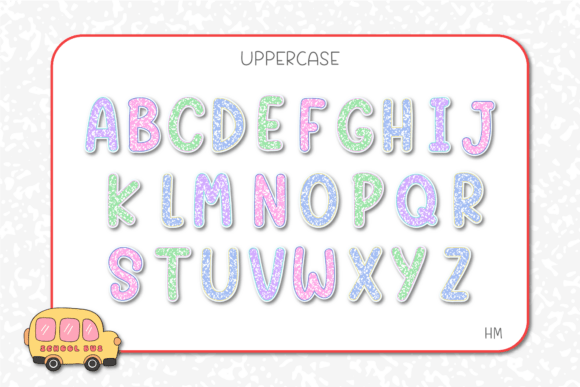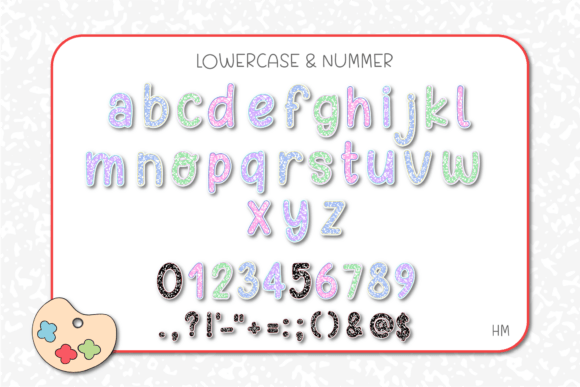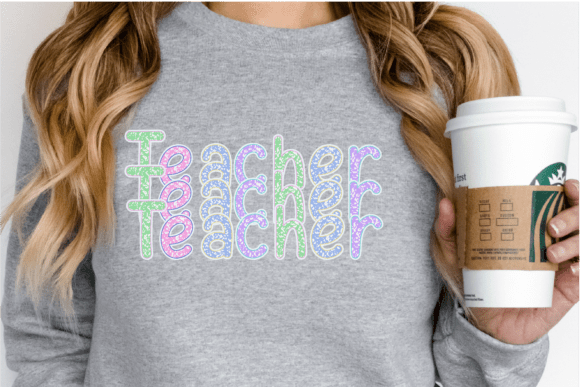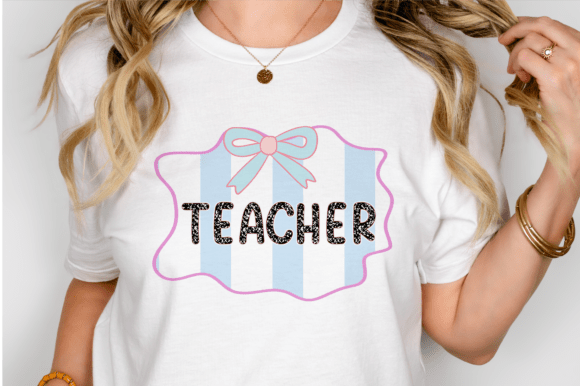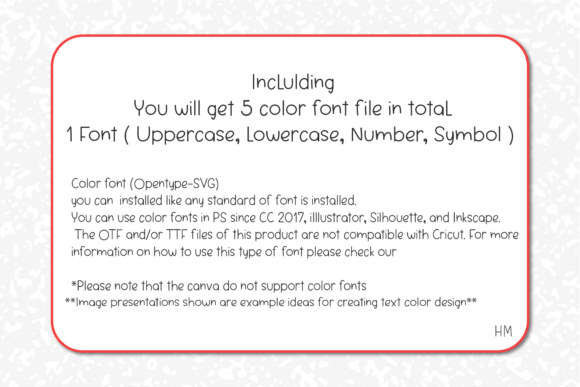
Get Ready for a Fun-Filled School Year with the Back to School Font
As I sat in my cozy home office, surrounded by scraps of paper and half-finished craft projects, I couldn’t help but feel a surge of excitement as I started brainstorming ideas for the new school year. It’s a time of fresh starts, new beginnings, and endless possibilities – and what better way to capture that spirit than with a font that embodies the essence of back to school?
Introducing the Back to School Cute Color Font, a delightful composition notebook-inspired design that’s perfect for teacher resources, student name tags, classroom decor, and educational worksheets. This playful font is a valuable addition to any designer’s toolkit, offering a fun and colorful way to bring your projects to life. With uppercase, lowercase, numbers, and symbols in a range of pastel and bold tones, you’ll be spoiled for choice when it comes to creating engaging and eye-catching designs.
Key Features of “Back to School Font”
- Font Family: A unique, custom-designed font family specifically created for educational purposes, with a fun and playful feel.
- Font Size: Designed to be highly legible at font sizes ranging from 8 to 24 points, making it suitable for a variety of educational materials.
- Resolution: Optimized for high-resolution displays, ensuring clear and crisp text at resolutions up to 300 DPI.
- Character Set: Includes a comprehensive set of characters, including Latin, Cyrillic, and Greek alphabets, as well as various symbols and punctuation marks.
- Unique Characteristics: Features a distinctive, hand-drawn feel with subtle texture and flair, adding a touch of personality to educational materials.
Back to School Font Review
Overall, I think the Back to School Font is a fun and playful addition to any design project. ✨ Its childlike aesthetic makes it perfect for educational materials, summer camps, or anything related to youth.
- ✨ Unique and memorable design that’s sure to stand out
- ✨ Wide range of letter combinations that feel whimsical and fun
- ✨ Perfect for headings and titles, adding a touch of personality to your design
However, I do think there are some limitations:
- ⚠️ Limited versatility outside of its intended use (e.g. it might not be suitable for corporate or professional designs)
- ⚠️ Some letterforms can be a bit difficult to read at smaller font sizes
- ⚠️ Not ideal for body text, as it can be a bit too playful and distracting
Overall, I’d say the Back to School Font is a great choice for designers looking to add a bit of whimsy to their projects. Just be aware of its limitations and use it accordingly.
Getting the Most Out of the Back to School Font
For the best results, use the Back to School Font in conjunction with other educational-themed elements, such as illustrations of apples, pencils, or books. This will create a cohesive and engaging design. Experiment with different font sizes and styles to add visual interest to your design.
The Back to School Font is ideal for creating educational materials, such as worksheets, posters, and flyers. It’s also a great choice for social media graphics, blog posts, and website content related to education or back to school themes.